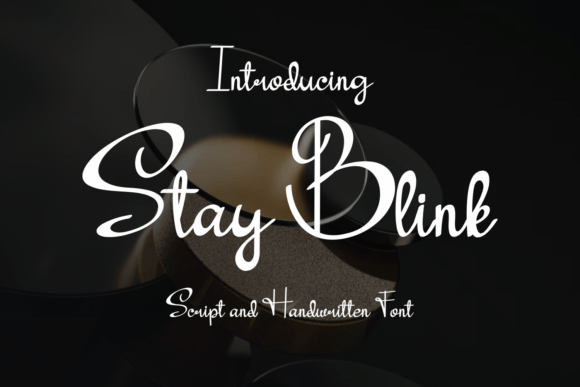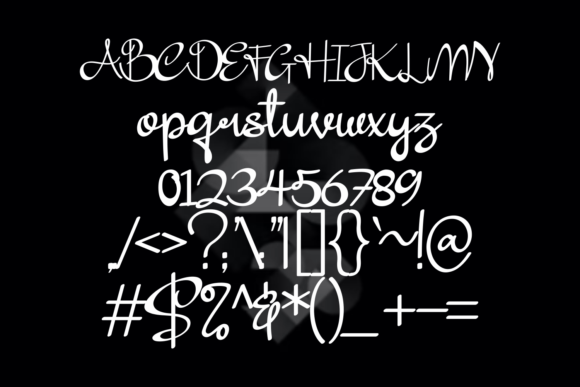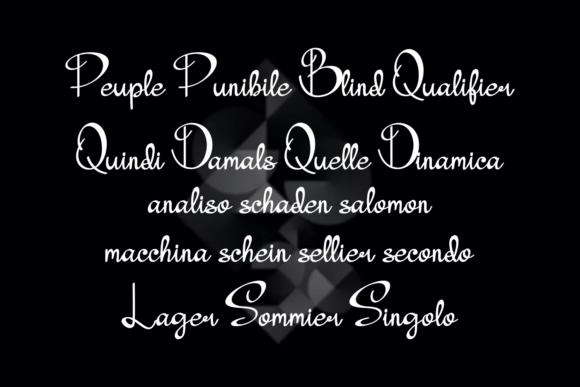
Stay Blink Font
Add a touch of elegance and modernity to your creative projects with the Stay Blink font. This handwritten script font is designed to be both stylish and versatile. It is perfect for branding, name cards, posters, logos, magazines, covers, banners, t-shirts, headers, and even large-scale artwork.
The Stay Blink font features smooth, flowing strokes that give your text a sophisticated and contemporary look. Its clean and polished style ensures your designs are both professional and eye-catching. This font works well across a variety of mediums and project types.
Whether you are creating branding materials, promotional posters, or magazine covers, the Stay Blink font adds a refined flair that enhances your message. It also shines on apparel designs like t-shirts, helping you make a stylish statement.
Despite its elegant design, the Stay Blink font maintains excellent readability at all sizes. Whether used for bold headlines or detailed artwork, it adds clarity and sophistication to your work.
Using this font will elevate your projects with a unique blend of elegance and modernity. If you want your designs to stand out with a professional and stylish appearance, the Stay Blink font is an excellent choice.
In summary, the Stay Blink font is perfect for a wide range of creative applications. From branding and posters to magazines and apparel, it delivers a clean, modern look. Download it today and bring elegance to your designs with this beautiful handwritten script.